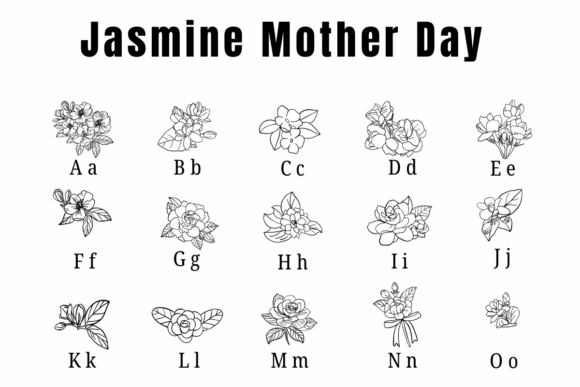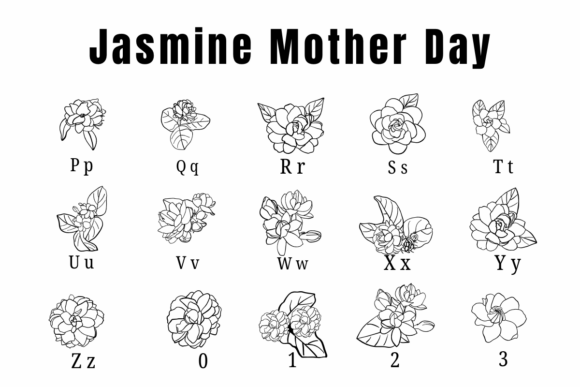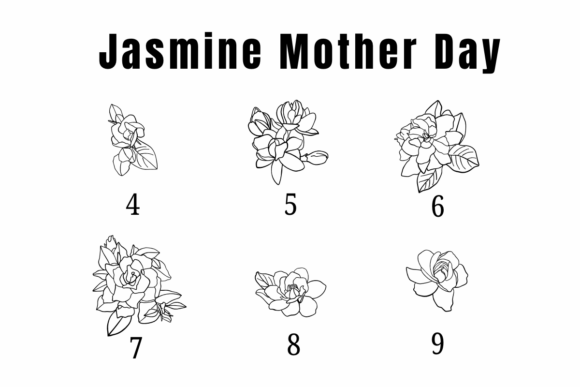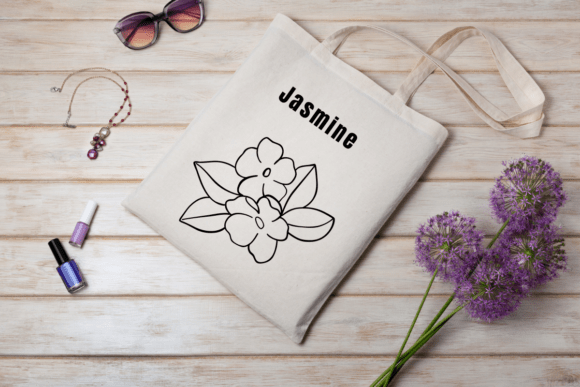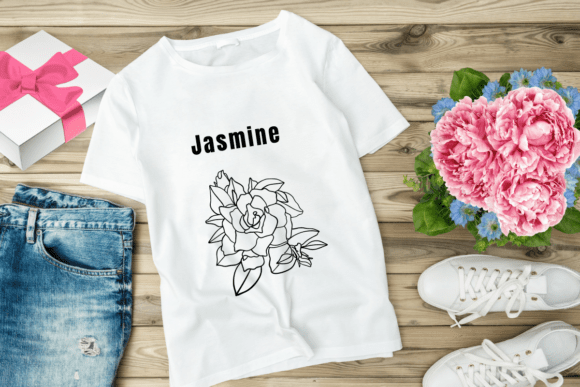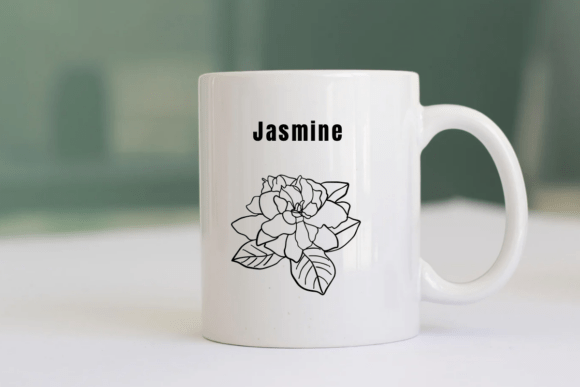
Introduction to Jasmine Mother Day Font
Jasmine Mother Day is a dingbats font with a heartfelt theme.
This font can enhance your creative projects such as wedding invitations, DIY, crafts, decorations, logos, and many other creative ideas .
Key Features of Jasmine Mother Day Font
Why Choose Jasmine Mother Day Font?
Jasmine Mother Day Font offers exceptional quality and versatility, making it a valuable addition to your design toolkit. Whether you’re creating for personal projects or commercial use, Jasmine Mother Day Font delivers professional results.